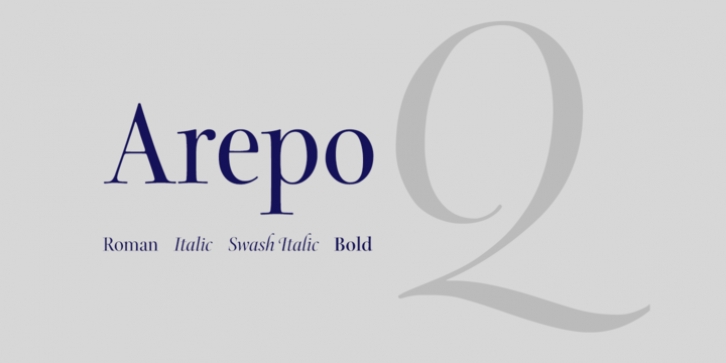
Arepo was designed by Sumner Stone and published by Stone Type Foundry. Arepo contains 4 styles and family package options.
Arepo is a display typeface inspired both by the Imperial Roman letter and the forms of Giambattista Bodoni.
Together with Stone Print, SFPL, and Cycles it makes up a superfamily of typefaces.
· Arepo Roman
· Arepo Italic
· Arepo Italic Swash
· Arepo Bold